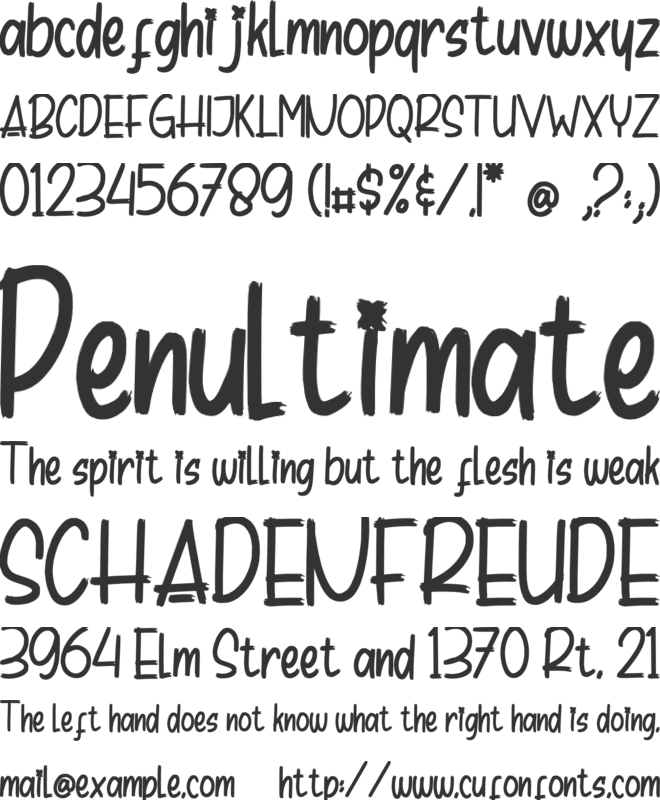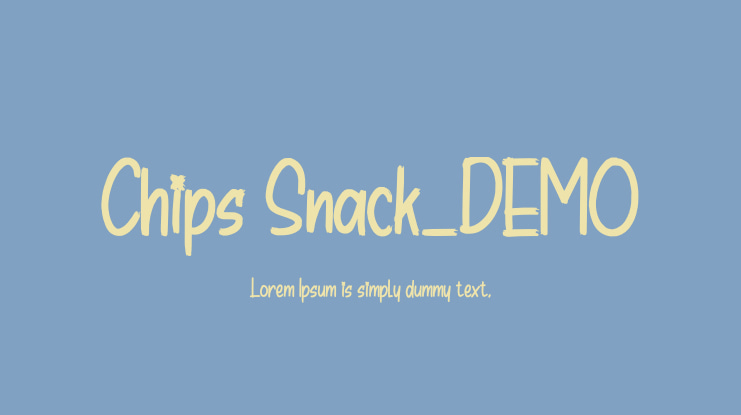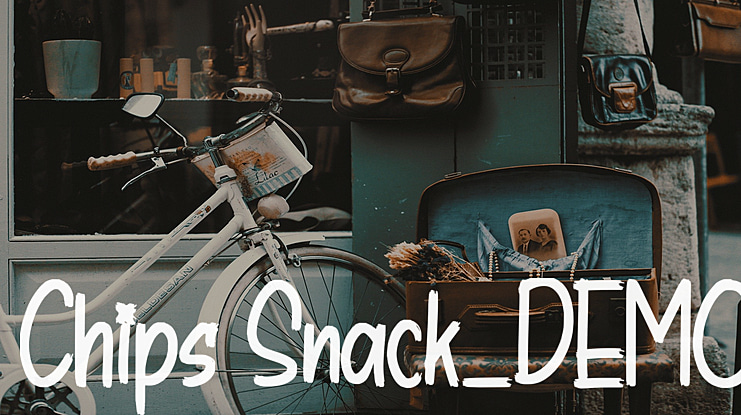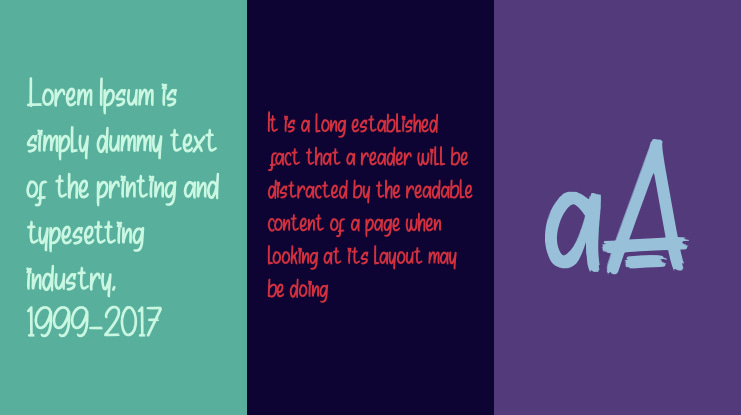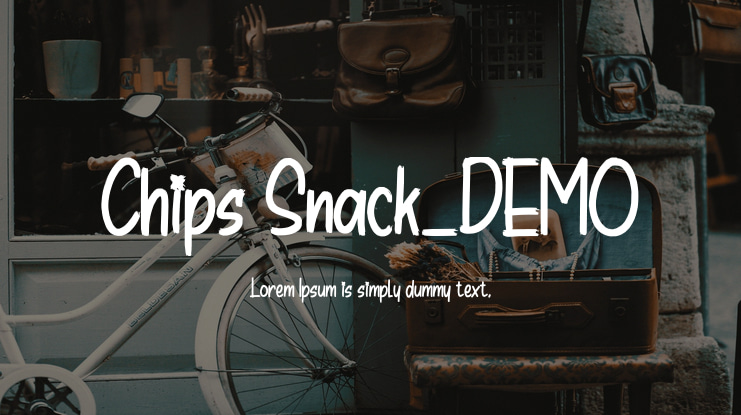
Chips Snack_DEMO Font
Chips Snack! A handwrittenfont with 2 styles, regular (brush texture) and solid. Chips Snack font is perfect for short typography, logotype, apparel, T-shirt, Hoodie, product packaging, quotes, flyer, poster.
1. Uppercase and lowercase characters
2. Supports international languages
3. Numerals, punctuations
6. Multilingual support